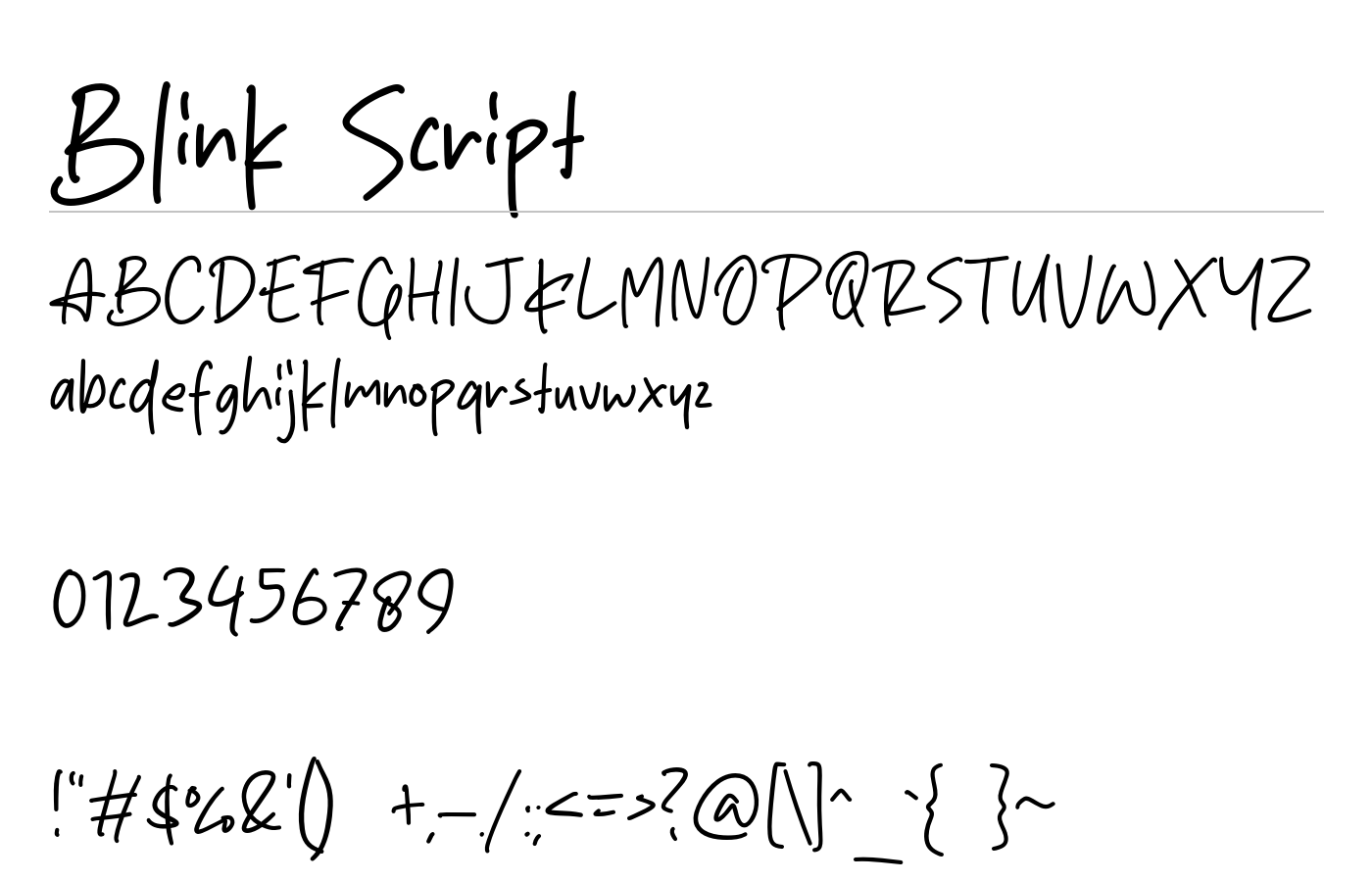
Blink Script is a casual, handwritten script font with a lively and organic feel, featuring smooth, slender strokes and a playful, informal style. Its tall x-height and loose spacing make it highly legible while conveying a friendly, approachable personality that works well for personal branding, creative projects, and trendy social media graphics. This font shines in headline use and designs that aim to feel spontaneous and authentic.
Blink Script Font
About Blink Script Font